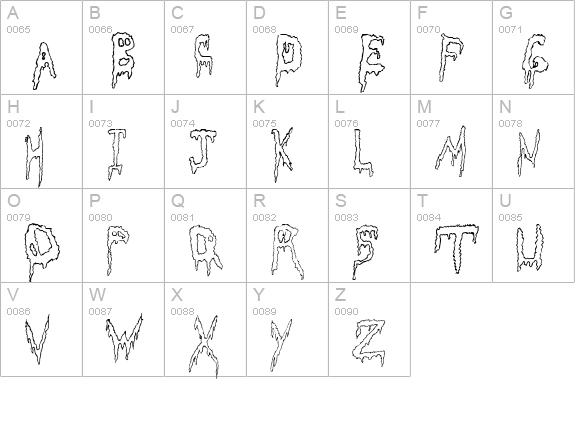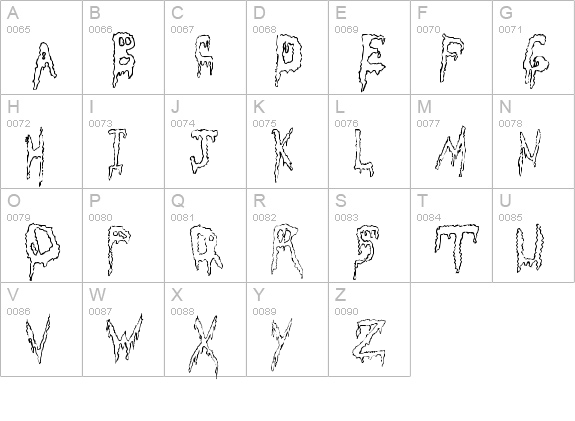
Grossout Font Details
Grossout font is a whimsical and quirky typeface that is sure to make a statement in your designs. With its exaggerated curves and playful design, this font adds a touch of fun and humor to any project. The unique characters of Grossout font will surely catch the eye and stand out from the crowd. And the best part? Grossout font is completely free to download at FontsMarket.com! So, bring a touch of whimsy to your work with this delightful font that is sure to make your designs pop. Don't miss out on this free and fun font - download Grossout today!